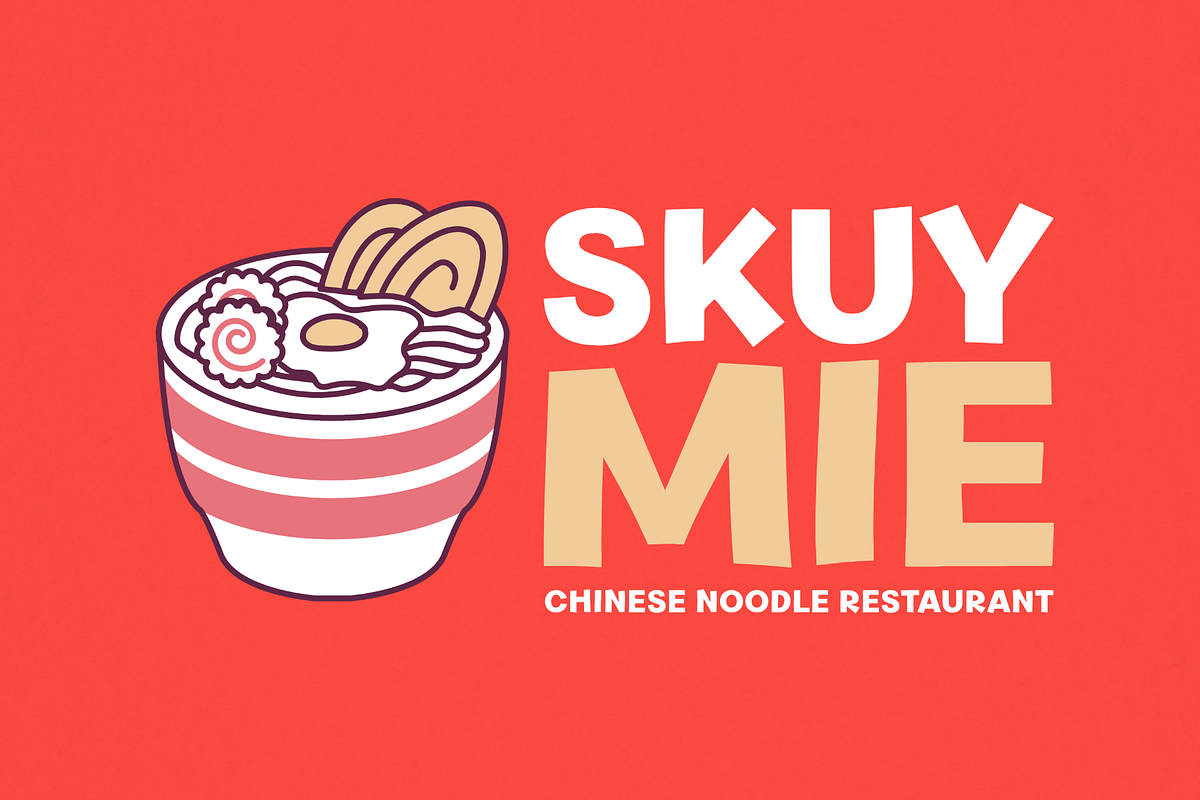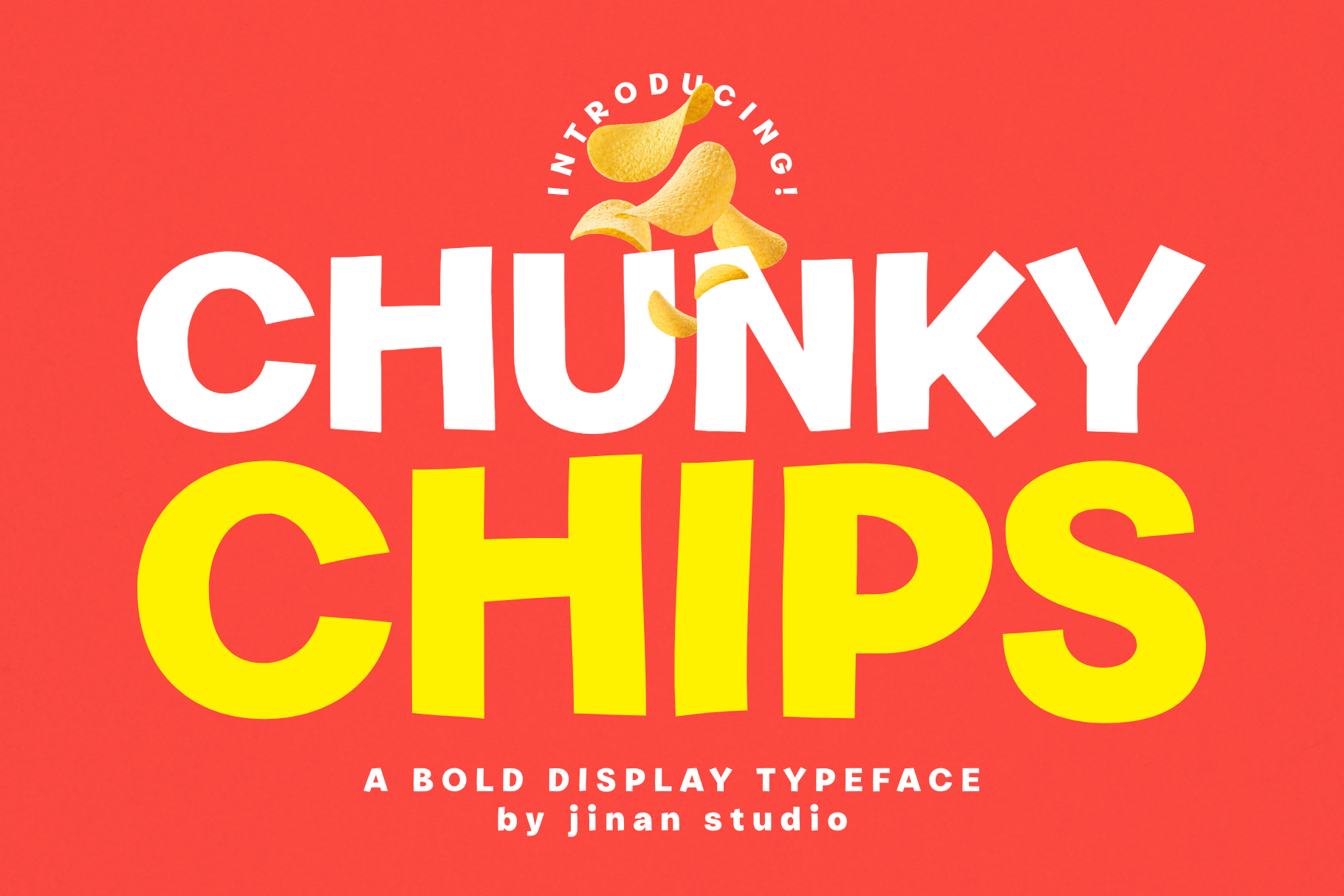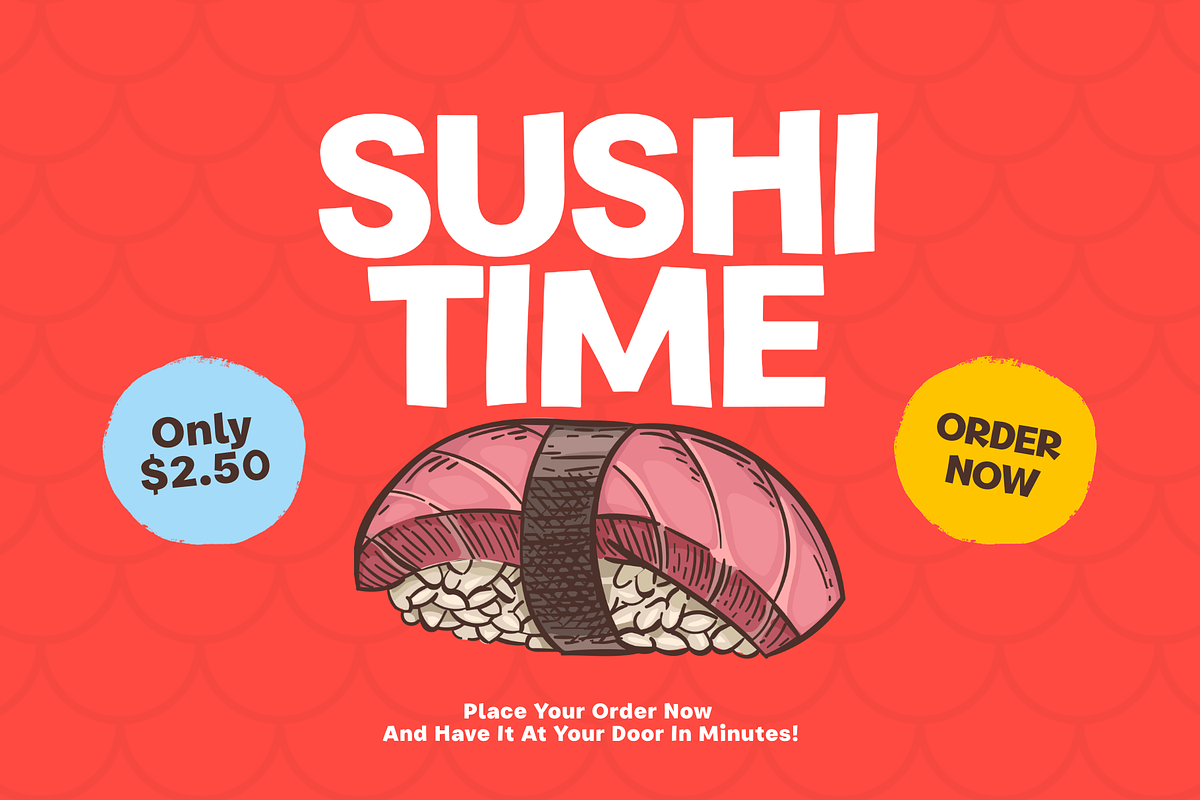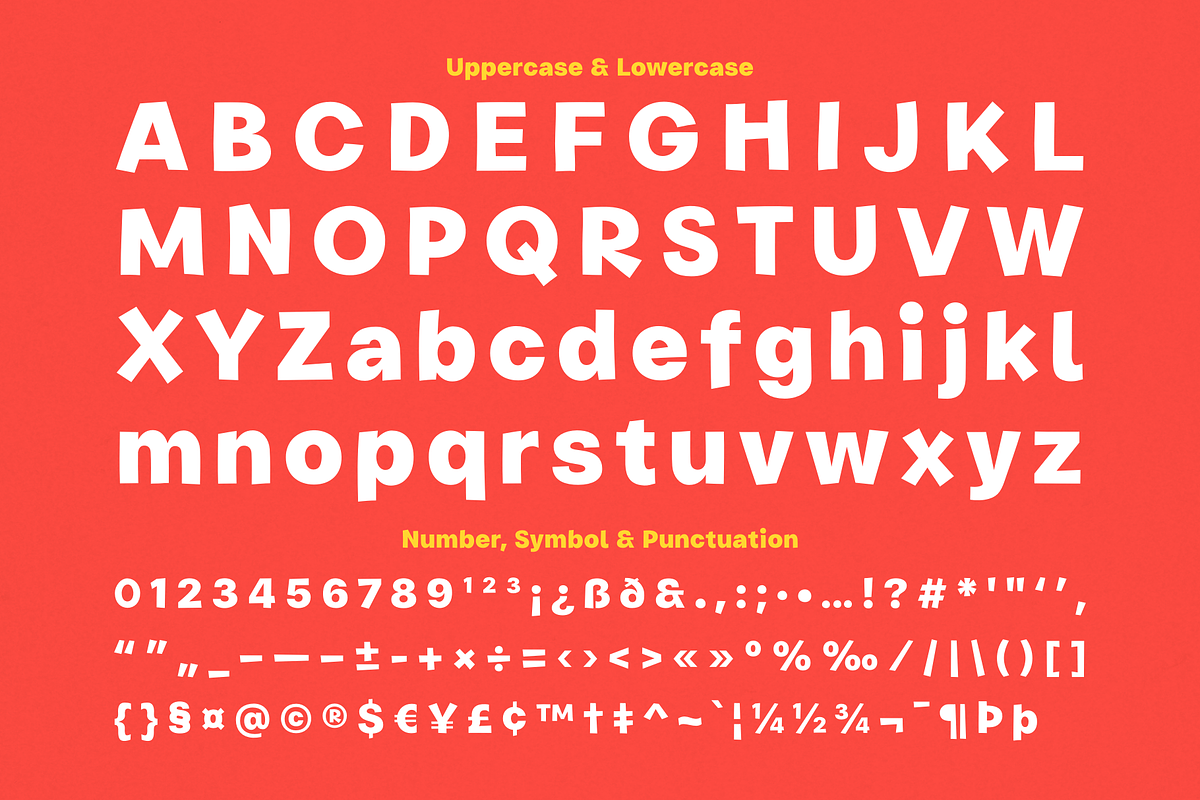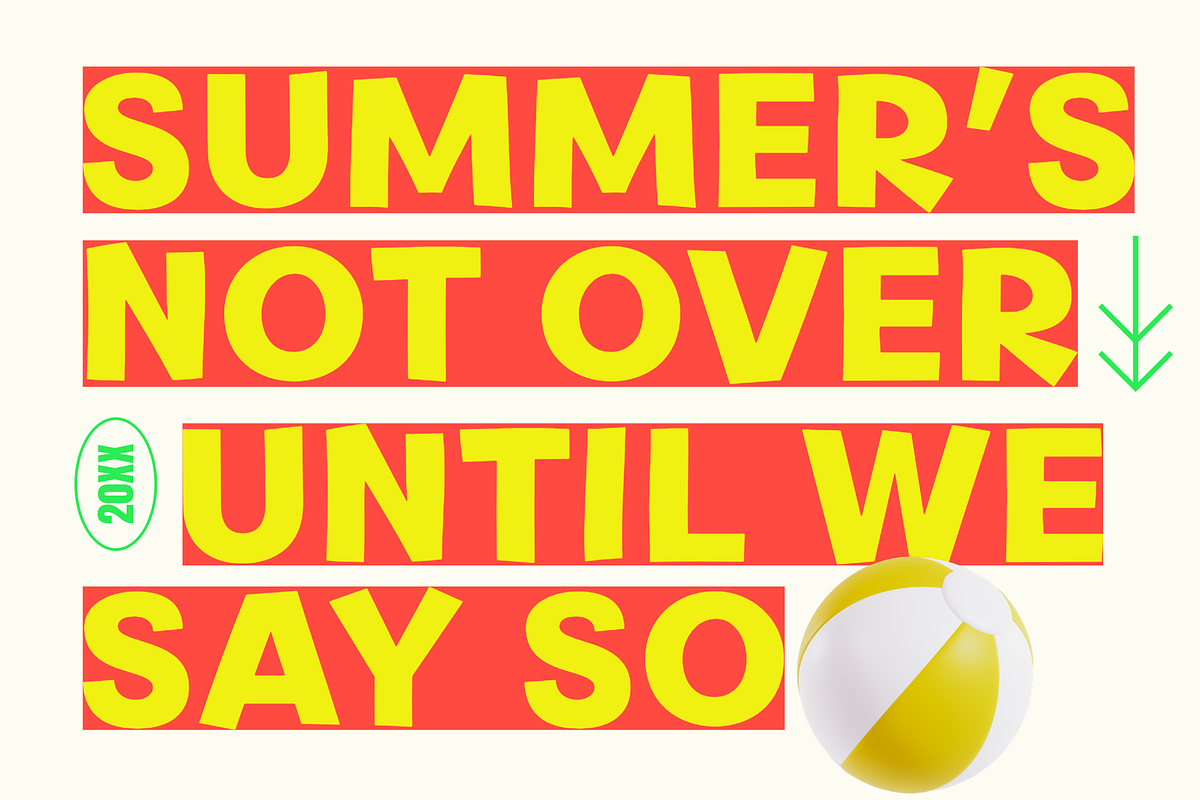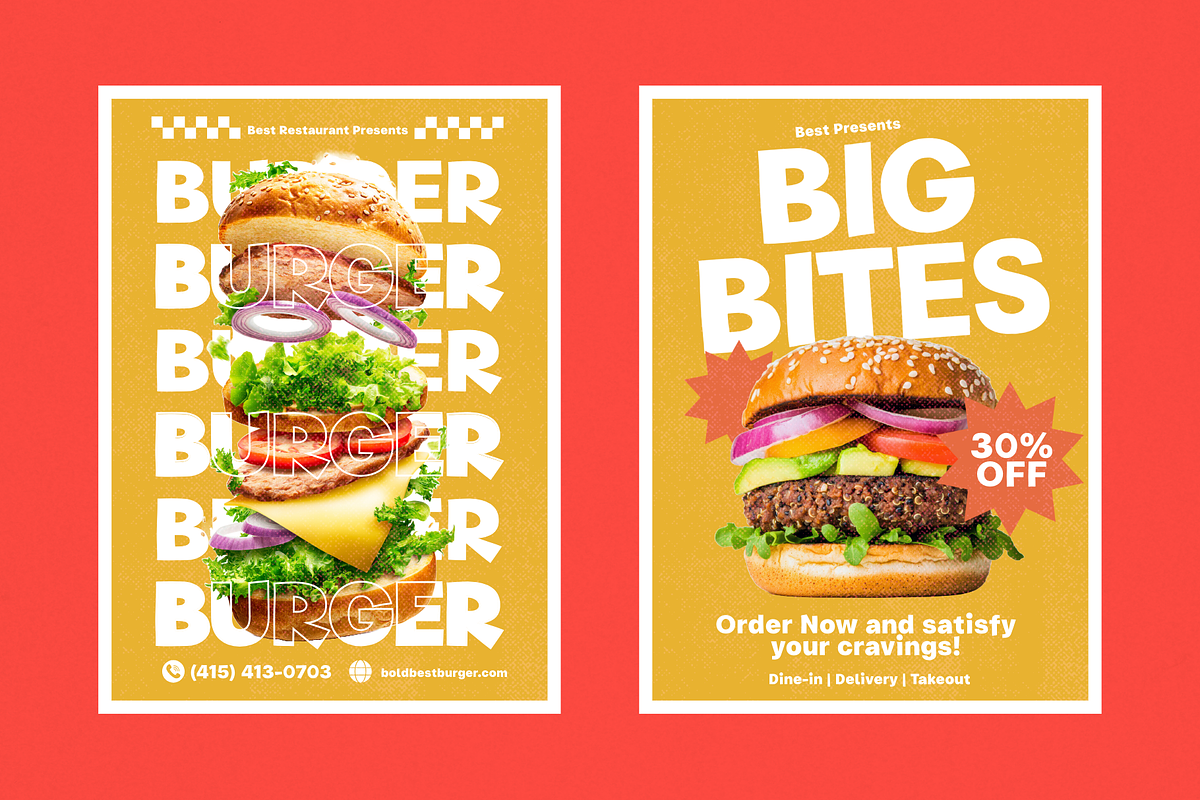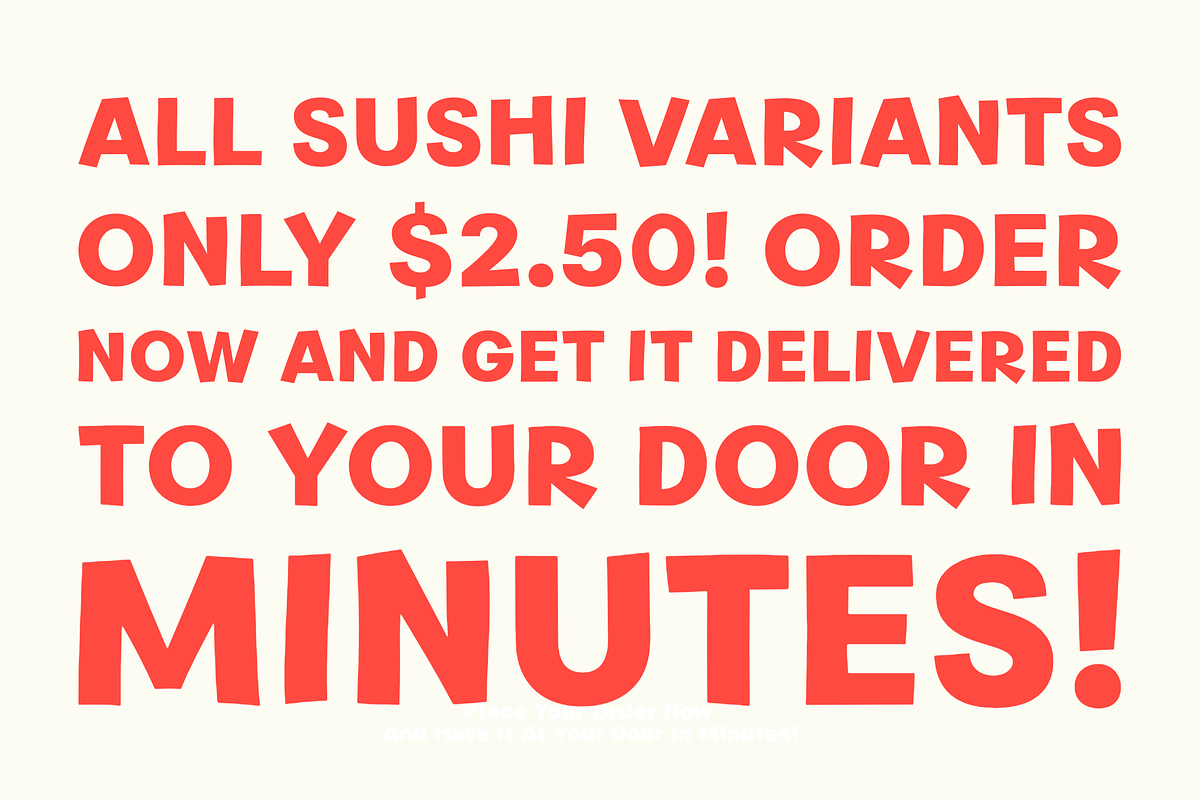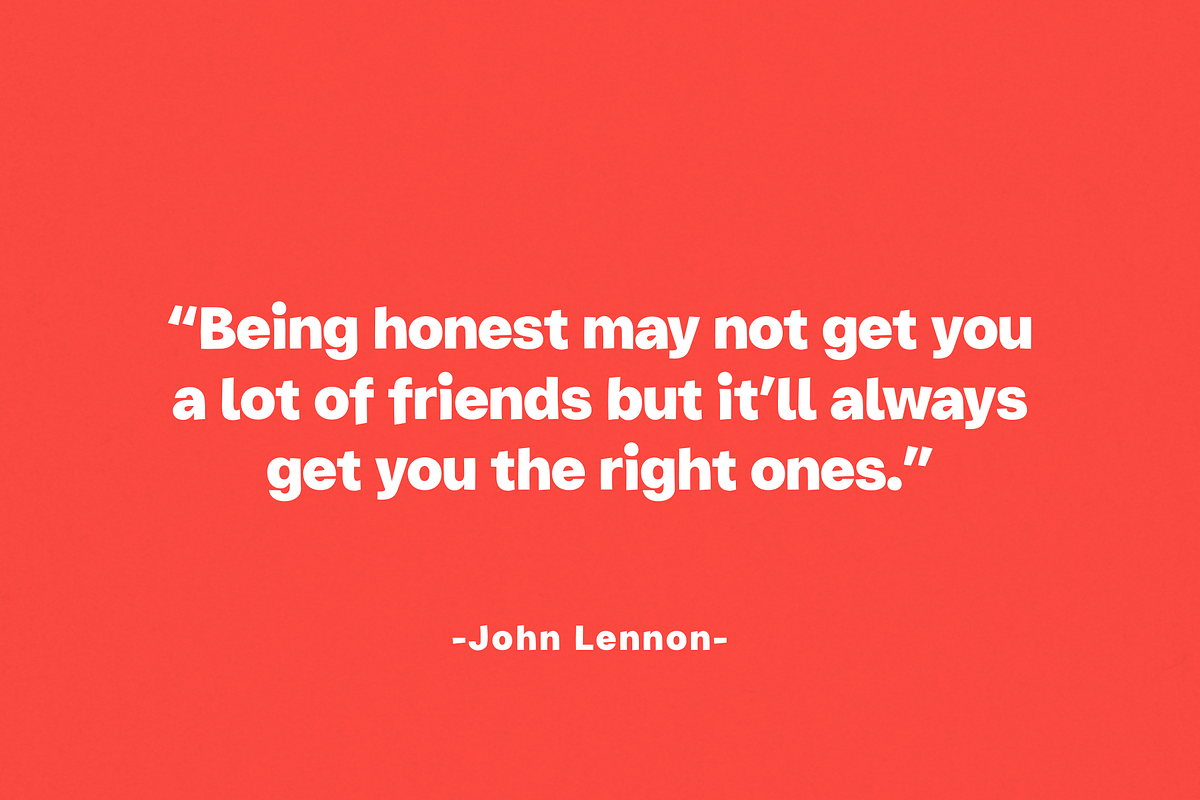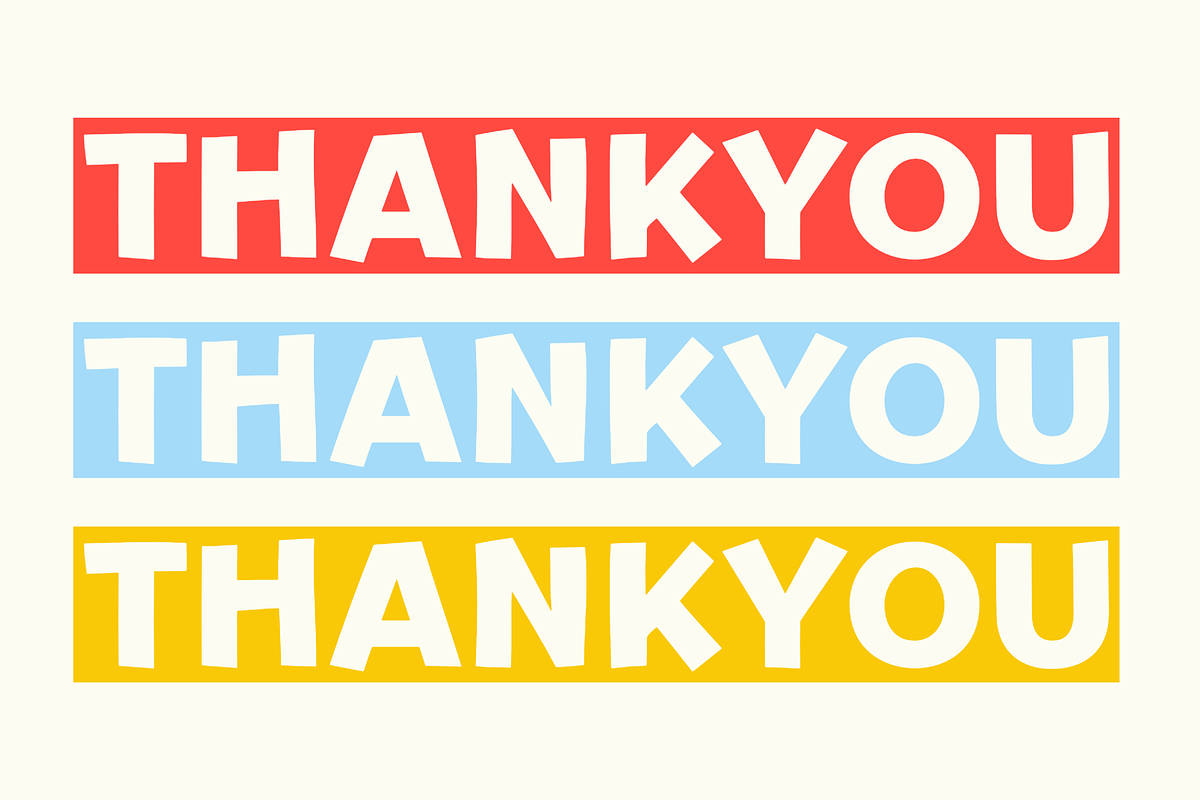
Chunky Chips - A Bold Display font
Say hello to Chunky Chips, a bold and chunky display typeface that’s full of flavor! This playful font packs a punch with its thick, confident shapes and cheerful vibe—perfect for making your food branding pop.
Designed to bring joy and appetite to your designs, Chunky Chips is your go-to font for snack packaging, restaurant logos, food posters, and anything that needs a fun and eye-catching touch. Each letter feels lively and dynamic, just like the crispy chips it’s named after!
Whether you’re crafting a mouthwatering menu, playful product label, or bold headline, Chunky Chips will make your design look absolutely irresistible.
- A set of uppercase and lowercase glyphs
- Number, symbol, and punctuation